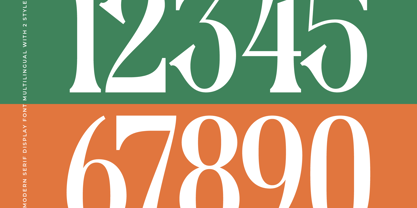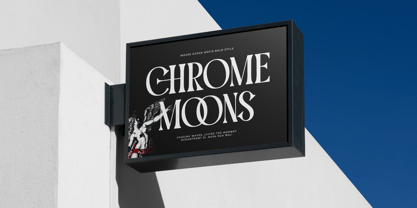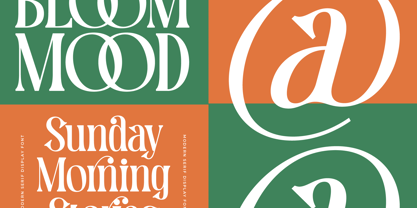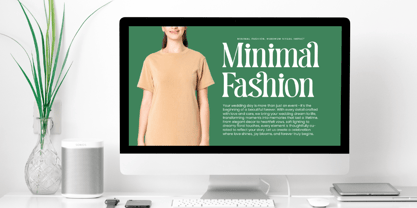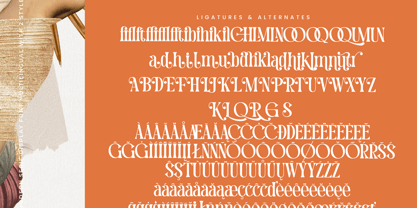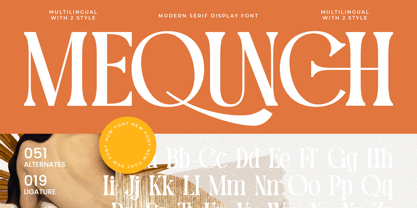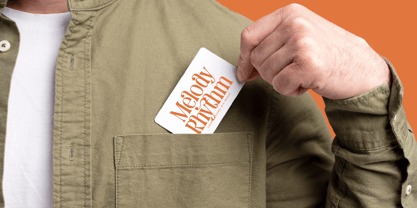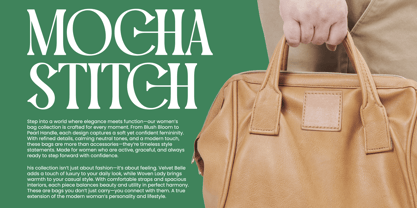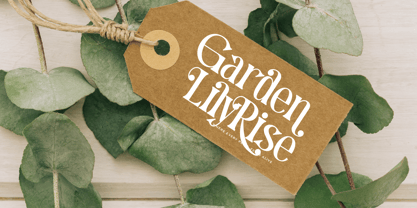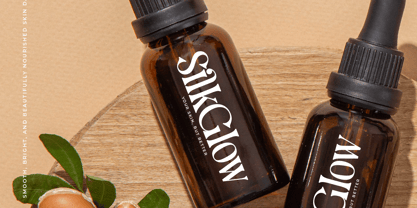
Mequnch
by Timelesstype Studio
The Mequnch Font Family was designed by Heru Utama Putra and published by Timelesstype Studio. Mequnch contains 2 styles and family package options. More about this family
Mequnch - Modern Serif Display Font , from Timelesstype , Suitable for any projects such as: logos, branding projects, homeware designs, product packaging, mugs, quotes, posters, shopping bags, t-shirts, book covers, name card, invitation cards, greeting cards, label, photography, watermark, special events, and all your other luxury and beautiful projects that need a Luxury Serif taste.